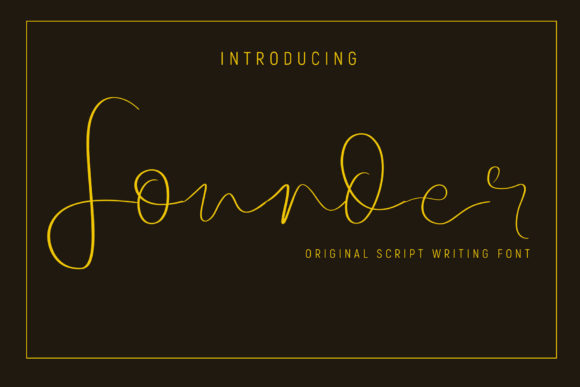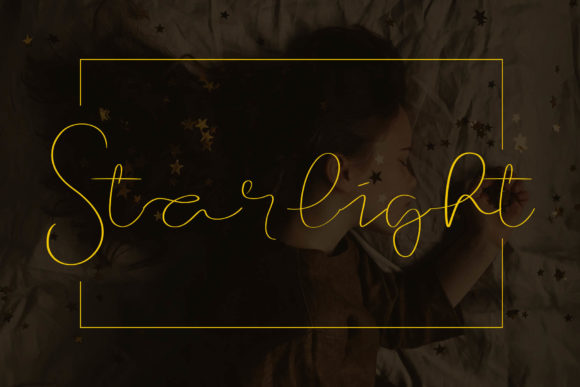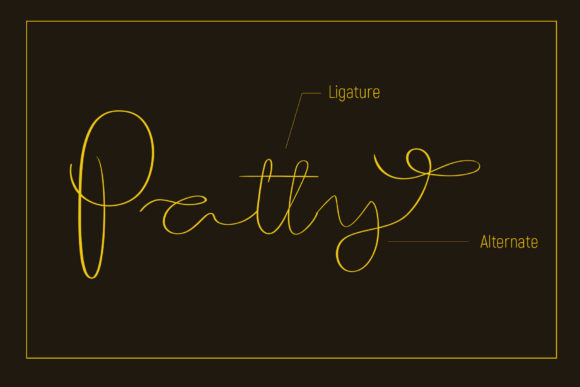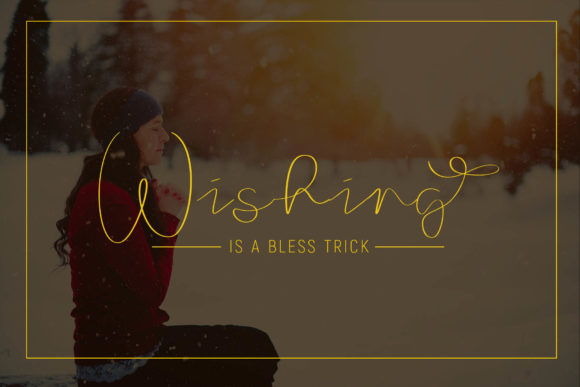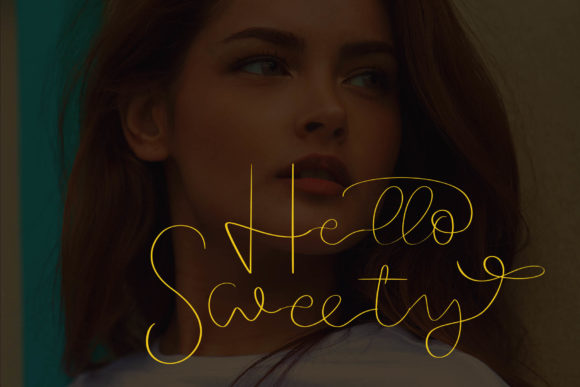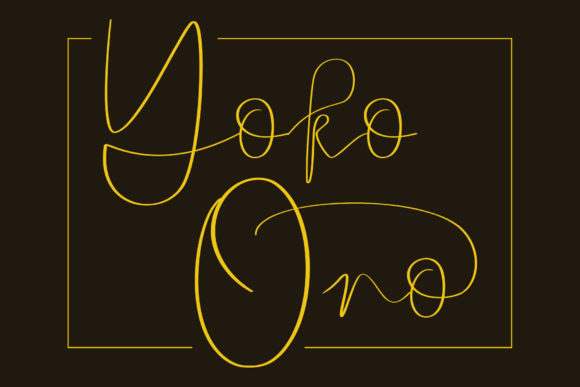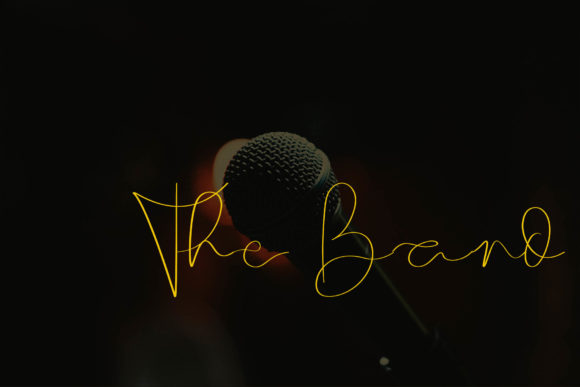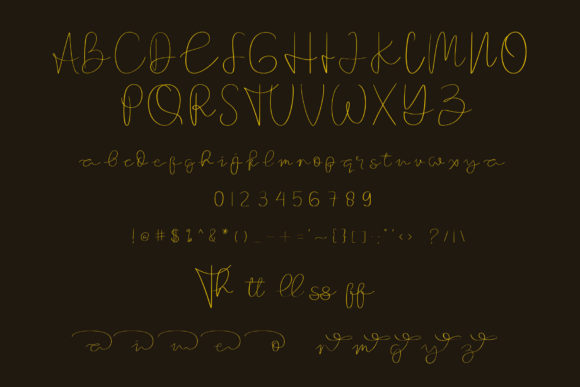
Founder Font
About Founder Font
The Founder is a classy script typeface. It’s an original handwriting font which will give your design an authentic feeling.